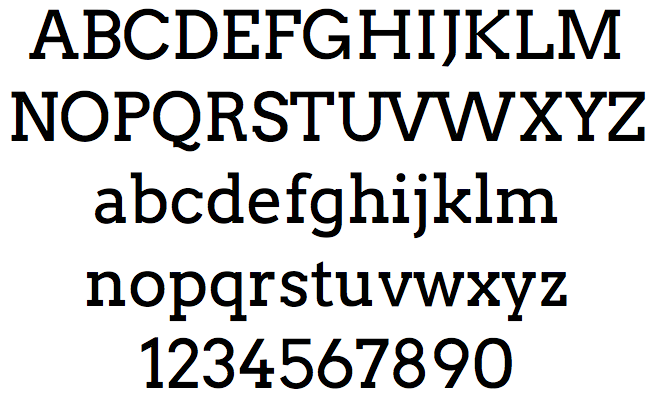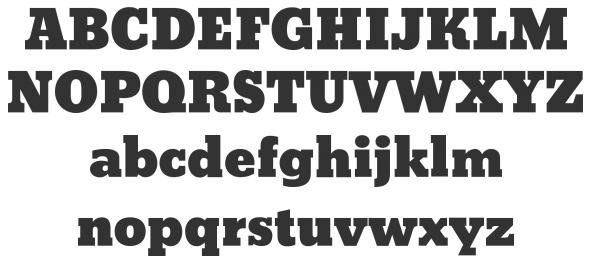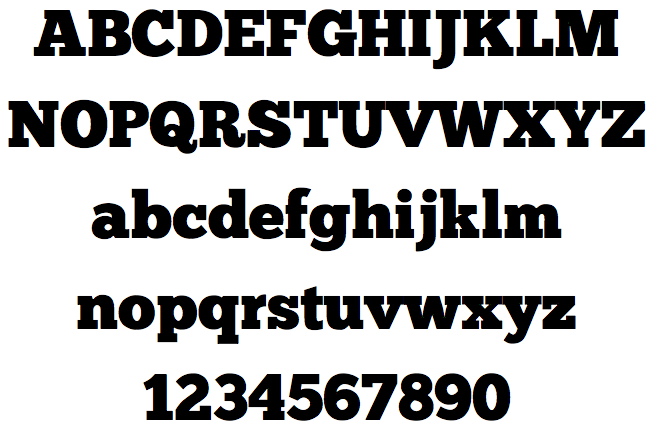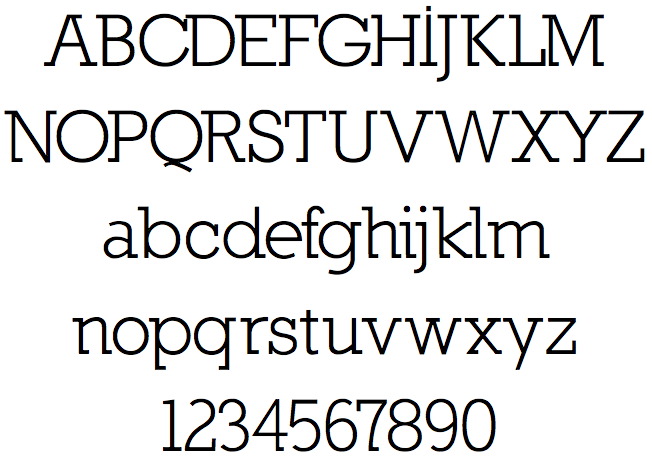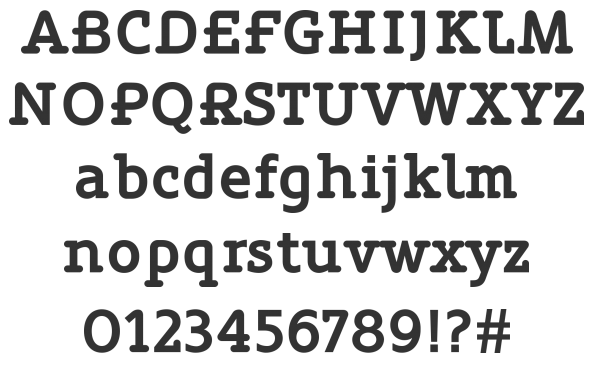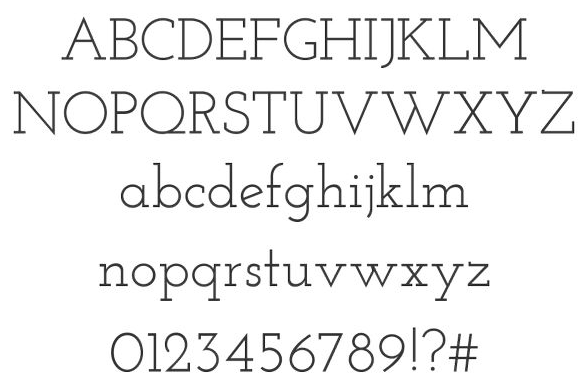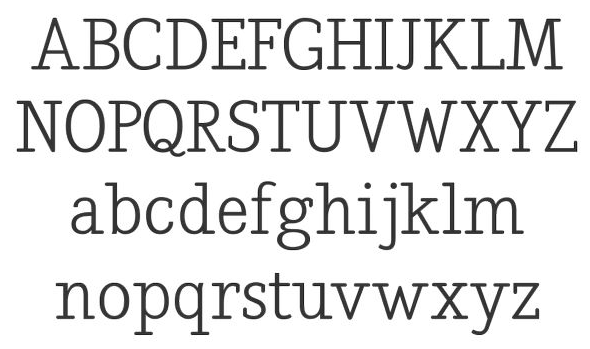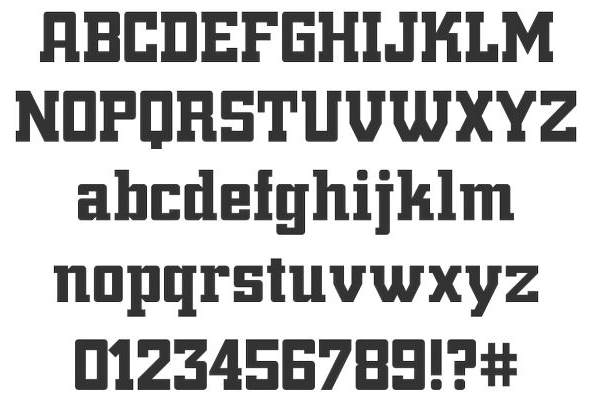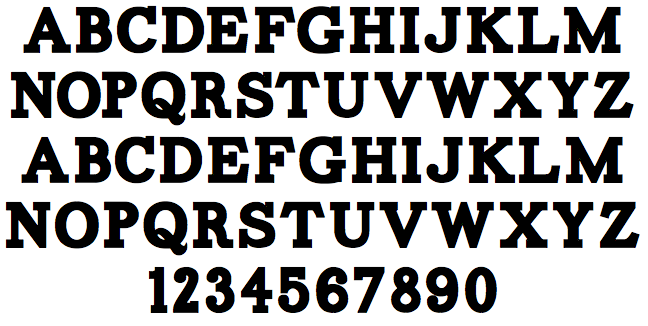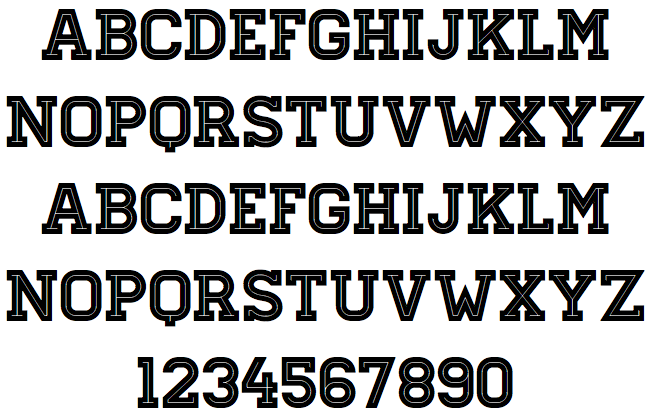
Slab Serif Fonts 15 You Should Use
Slab Serif Fonts: 15 You Should Use in Your Designs
Slab serif fonts are excellent for adding character and impact to your designs. Some are thick, and some are thin. However, they all have a distinct presence that really grabs attention. You will mainly use them for headlines or display typefaces, because they aren’t easy to read as body copy. They are mainly used to make a statement. They can also give a design a bold personality. Below is a selection of really nice slab serif typefaces you should consider using in your designs.
Conclusion
The fonts shown above each have their own style. They have their own unique look and feel, and would make any project stand out. Slab Serif typefaces have a great deal of presence. They give your design work a sense of authority and trustworthiness. They visually have a strong base, due to the slab serifs, which gives the viewer the impression of stability from a company. Unique fonts, such as Homestead really have a place, especially with textile companies, because of the different textured parts of the typeface. Some are more abstract, such as Trump Town Pro, which has an industrial feel to it. You get the impression that this would fit well with a company that is known for construction, or manufacturing.
Lighter slab serif typefaces, such as Josefin and Nilland have an elegant, upscale look and feel. They could be used in a variety of instances. Legion Slab is very tall and would look good when used with signage. Bevan and ChunkFive are very bold, and would look good as extremely bold headers, especially on a website. Which one is your favorite? Do you like slab serif typefaces, or do you prefer another type of font, such as serif or sans serif?